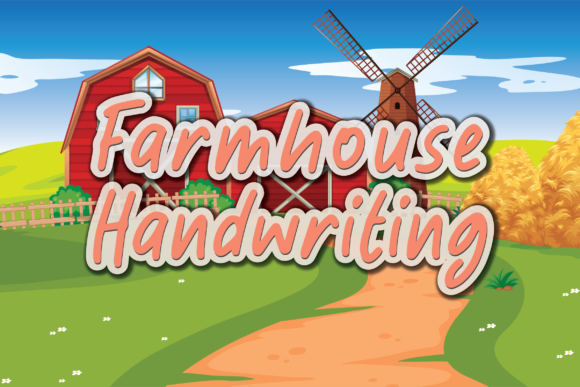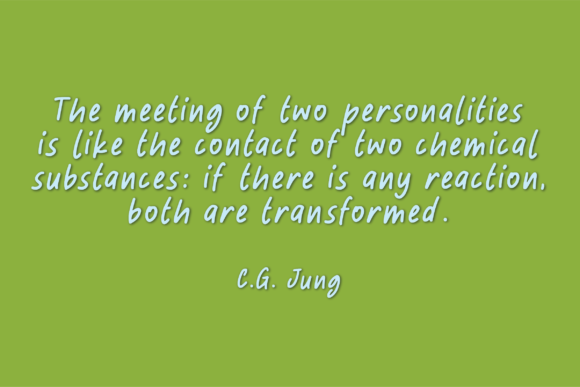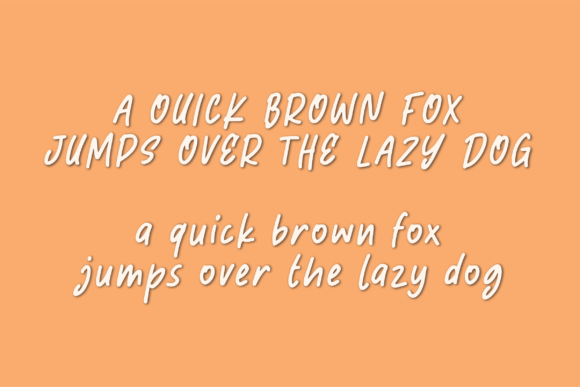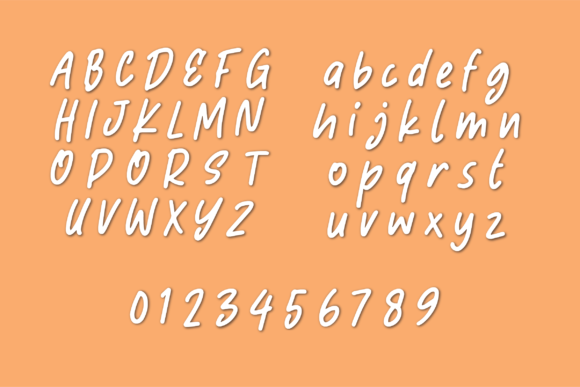
Farmhouse Handwriting Font
About Farmhouse Handwriting Font
Farmhouse Handwriting is a beautiful and attractive handwritten font. It has a modern yet whimsical style and it will undoubtedly immerse your designs into a magical world.